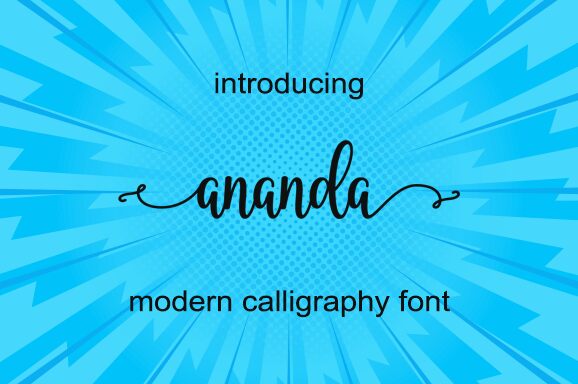
Ananda
Ananda, a narrow calligraphy font designed by Anjas Cov Cava Lera, is perfect for projects that require a light and elegant touch. Use Ananda to create beautiful typography for logos, invitations, and other creative projects.